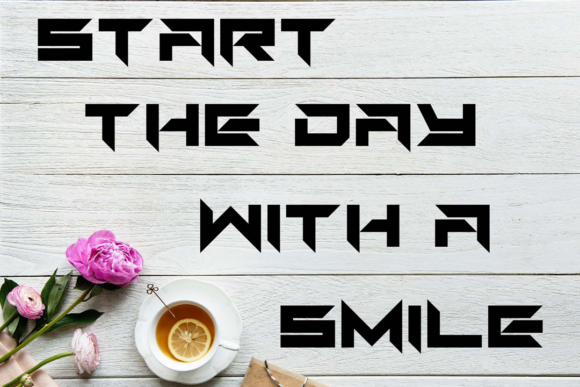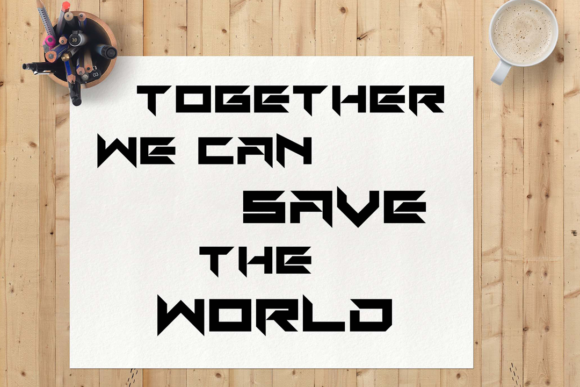
Introducing Auto Mode Font: The Ultimate Display Typeface for Bold Designs
In the world of typography, a font can make or break a design. When it comes to creating striking visuals that demand attention, the right font is essential. This is where Auto Mode Font comes into play – a game-changing display typeface designed to make your logos, posters, and designs stand out from the crowd.
The Power of Auto Mode Font
The Auto Mode Font is a carefully crafted typeface that embodies the perfect blend of style, sophistication, and impact. Its unique design ensures that your text doesn’t just convey a message but does so with flair and personality. Whether you’re working on a logo that needs to capture the essence of your brand or a poster that aims to draw in passersby, Auto Mode Font is your go-to choice.
Key Features of Auto Mode Font
• Versatility: Auto Mode Font isn’t limited to just one or two uses. Its versatile design makes it suitable for a wide range of applications, from digital media to print, ensuring your design looks great across all platforms.
• Legibility: Despite its bold and striking appearance, Auto Mode Font maintains high legibility. This ensures that your message is conveyed clearly and effectively, making it perfect for titles, headings, and any text that needs to stand out.
• Customization: With a range of weights and styles, Auto Mode Font offers ample opportunities for customization. This allows designers to experiment with different looks and tones, tailoring the font to fit their specific design needs.
• Uniqueness: In a sea of generic fonts, Auto Mode Font stands out with its distinctive style. It adds a touch of uniqueness to your designs, setting them apart from the competition.
Applications of Auto Mode Font
The applications of Auto Mode Font are vast and varied. Here are some of the most impactful ways you can use this versatile typeface:
• Logos and Branding: Create a lasting impression with a logo that uses Auto Mode Font. Its bold and striking appearance ensures your brand stands out and is easily recognizable.
• Posters and Flyers: When it comes to posters and flyers, visibility is key. Auto Mode Font ensures your message is seen and remembered, making it perfect for advertising and promotional materials.
• Digital Media: From website headers to social media graphics, Auto Mode Font brings a professional and eye-catching element to your digital presence.
• Packaging: Make your product stand out on the shelves with packaging that features bold and beautiful typography courtesy of Auto Mode Font.
Tips for Using Auto Mode Font
To get the most out of Auto Mode Font, consider the following tips:
• Pair it Wisely: When using Auto Mode Font for headings, pair it with a simpler, yet elegant font for body text to create visual harmony.
• Experiment with Colors: Don’t be afraid to experiment with different colors and gradients. Auto Mode Font looks stunning with bold color choices and creative applications.
• Consider Size: While Auto Mode Font is designed to make an impact, ensure it’s used at an appropriate size for its intended use. Sometimes, bigger isn’t better; it’s about balance and readability.
Auto Mode Font is more than just a typeface; it’s a design statement. With its striking appearance, versatility, and high legibility, it’s the perfect tool for designers and crafters looking to elevate their work. Whether you’re creating a bold logo, an eye-catching poster, or enhancing your digital presence, Auto Mode Font is your key to standing out in a crowded design landscape. So, why settle for ordinary when you can make a statement with Auto Mode Font?